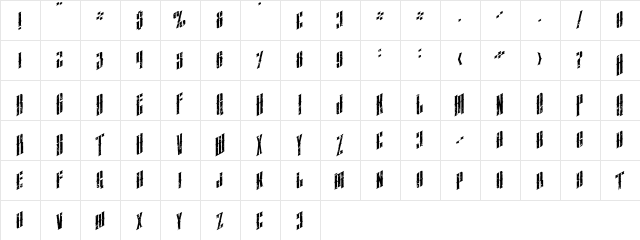
almanac italic grunge Regular
Design Context for almanac italic grunge Typeface
almanac italic grunge trades polish for personality, using distressed and eroded forms to bring grit and attitude to creative work. The dynamic lean of this cut emphasises speed and emphasis in any layout.
A strong fit for alternative music projects, graffiti-adjacent design, and anything that deliberately resists polish.
Pro Tip: Use almanac italic grunge at larger sizes where the texture and irregularity of each letterform can be clearly seen — it loses its character at small sizes.